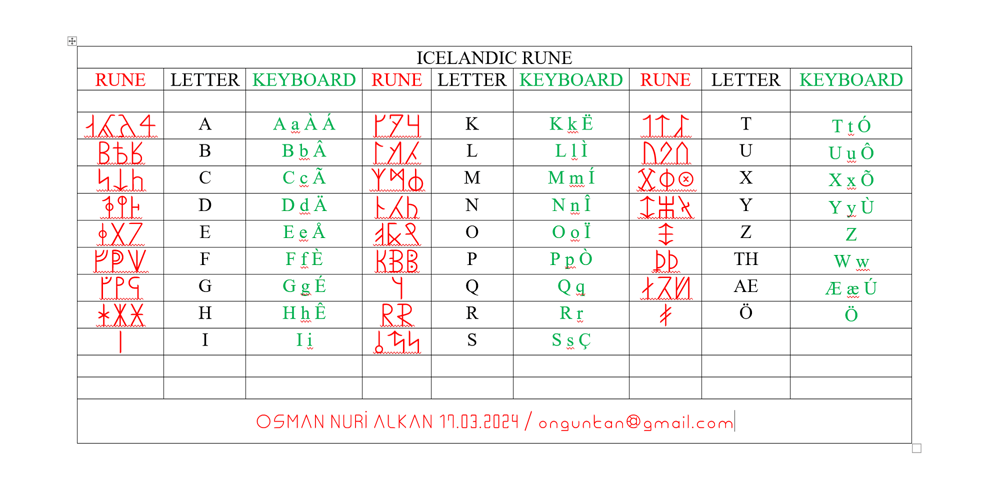
Ongunkan Icelandic Runic
Ongunkan Icelandic Runic font
Ongunkan Icelandic Runic Font Family was designed by Osman Nuri ALKAN and published by Runic World Tamgacı. Ongunkan Icelandic Runic contains 1 styles and family package options. Icelandic runes developed in a slightly different way than Scandinavian. While common people in Scandinavia kept the runes as a writing system through the middle ages, Icelanders seem to have adopted the Latin alphabet quickly after conversion. They didn’t forget about the runes however, but preserved the knowledge in manuscript books that were copied again and again for hundreds of years.To make the runes compatible with Latin letters, a man called Þóroddr rúnameistari is said to have made a runic reform that added some runes in the early 12th century. Later, the stung runes were added, maybe inspired by the runic renaissance of Valdemar sejr of Denmark. Amongst the earliest preserved texts on runes is the Third Grammatical Treatise, probably by Óláfr hvítaskáld, a nephew of Snorri Sturluson. It deals with rune phonetics and spelling amongst other things.